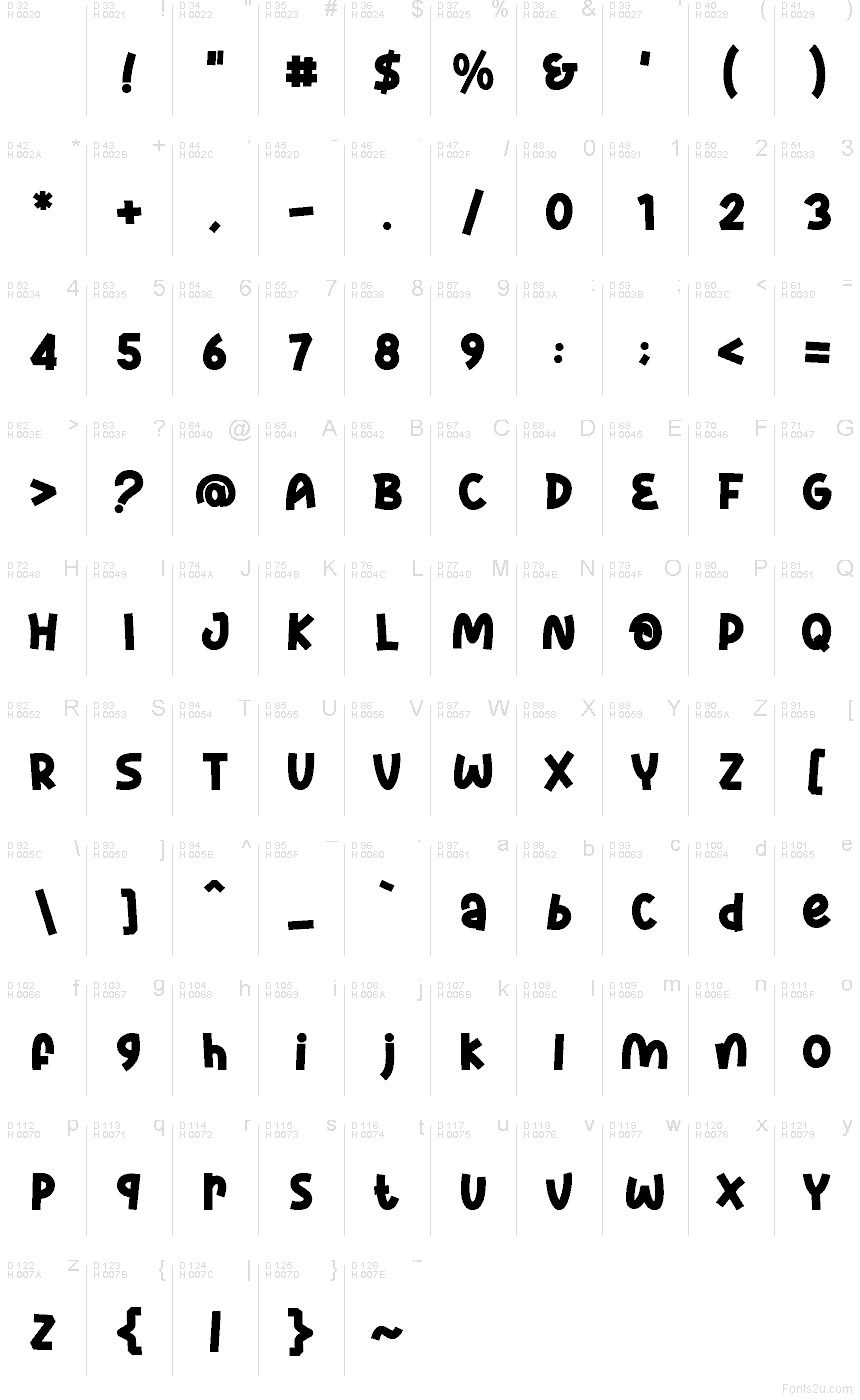
Rhuma Sinera, a free cartoon display font from Mabhal Studio, brings a chunky, hand-shaped rhythm to bold lettering. Its soft curves, uneven heights, and playfully tilted forms create a friendly, slightly unruly mood, while the broad strokes feel painted with a loaded brush.
This free font works well for children's book covers, snack packaging, festival posters, and playful brand marks. It is especially suited to short headlines and title cards, where the hefty silhouettes and bouncing alignment have room to carry the message with warmth.